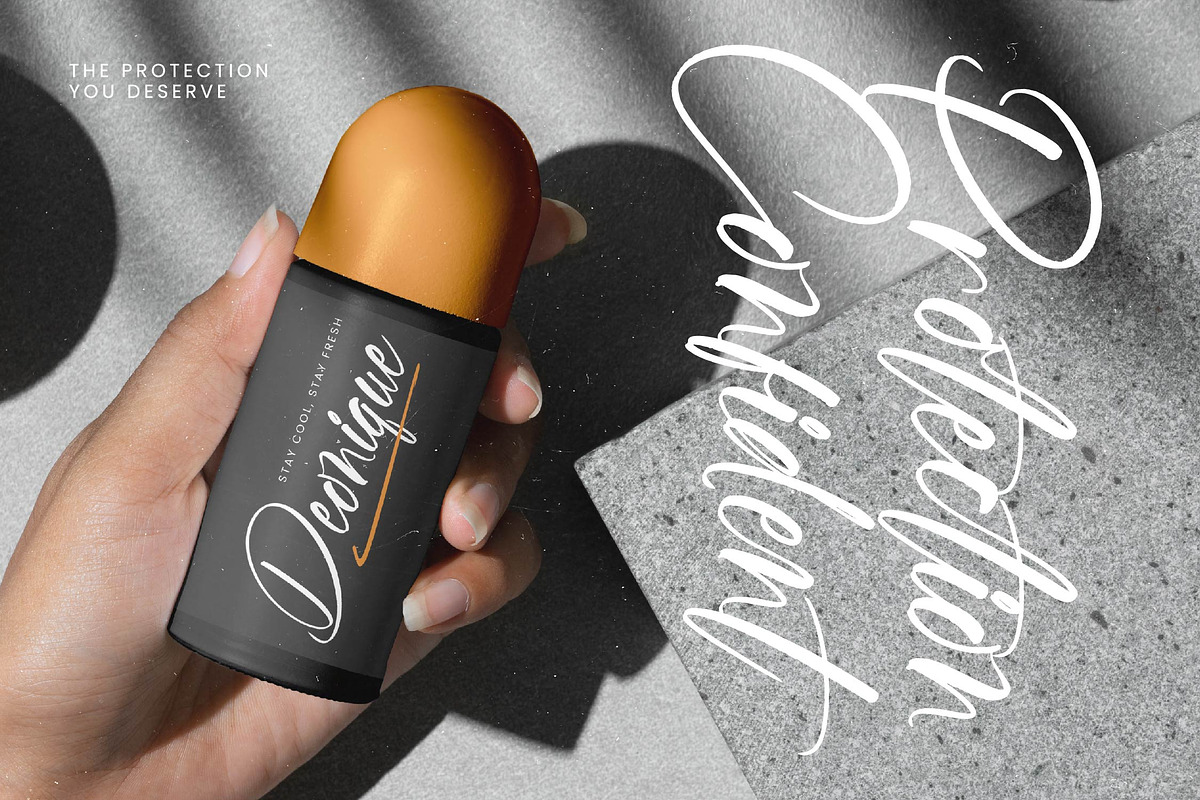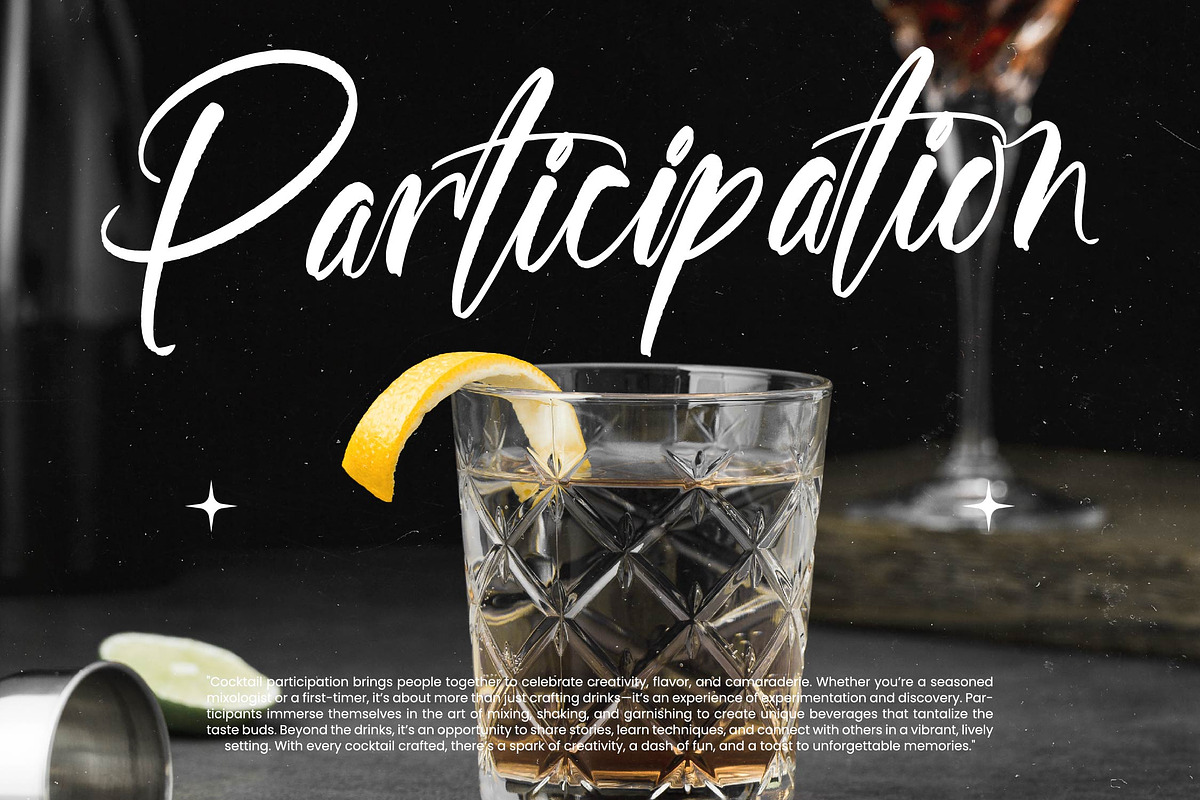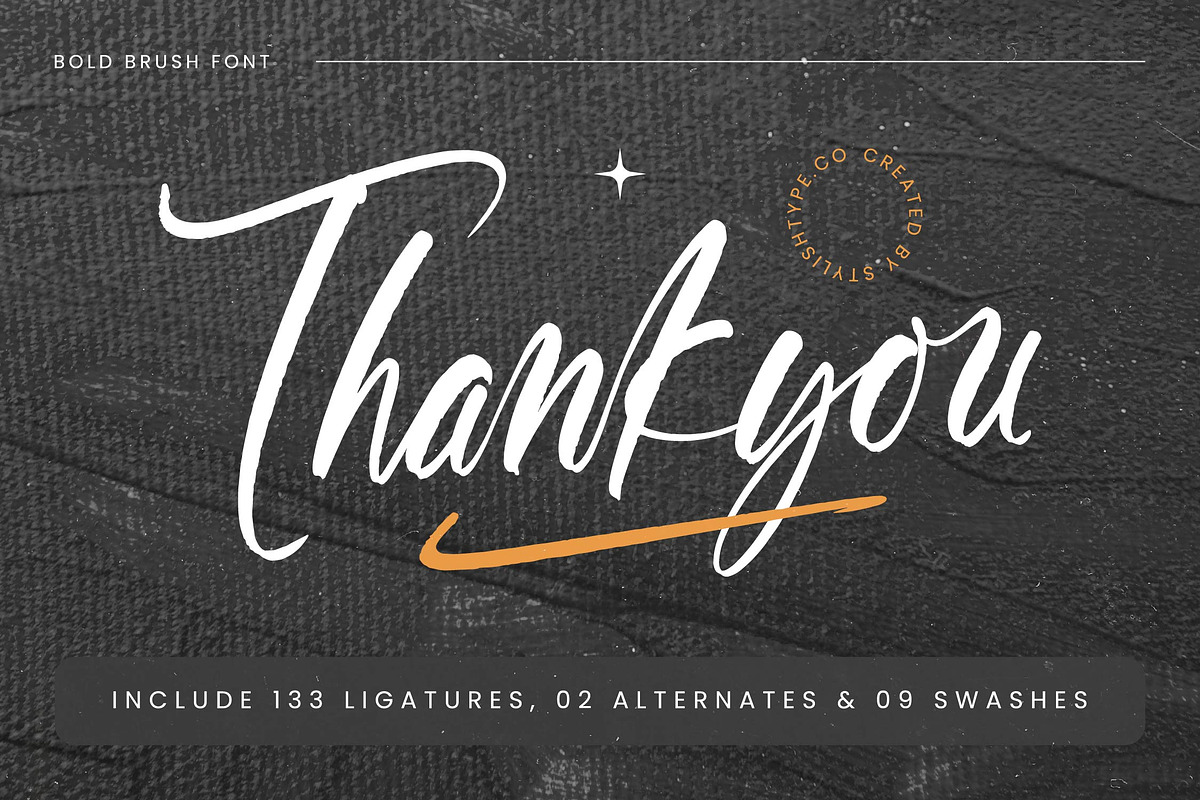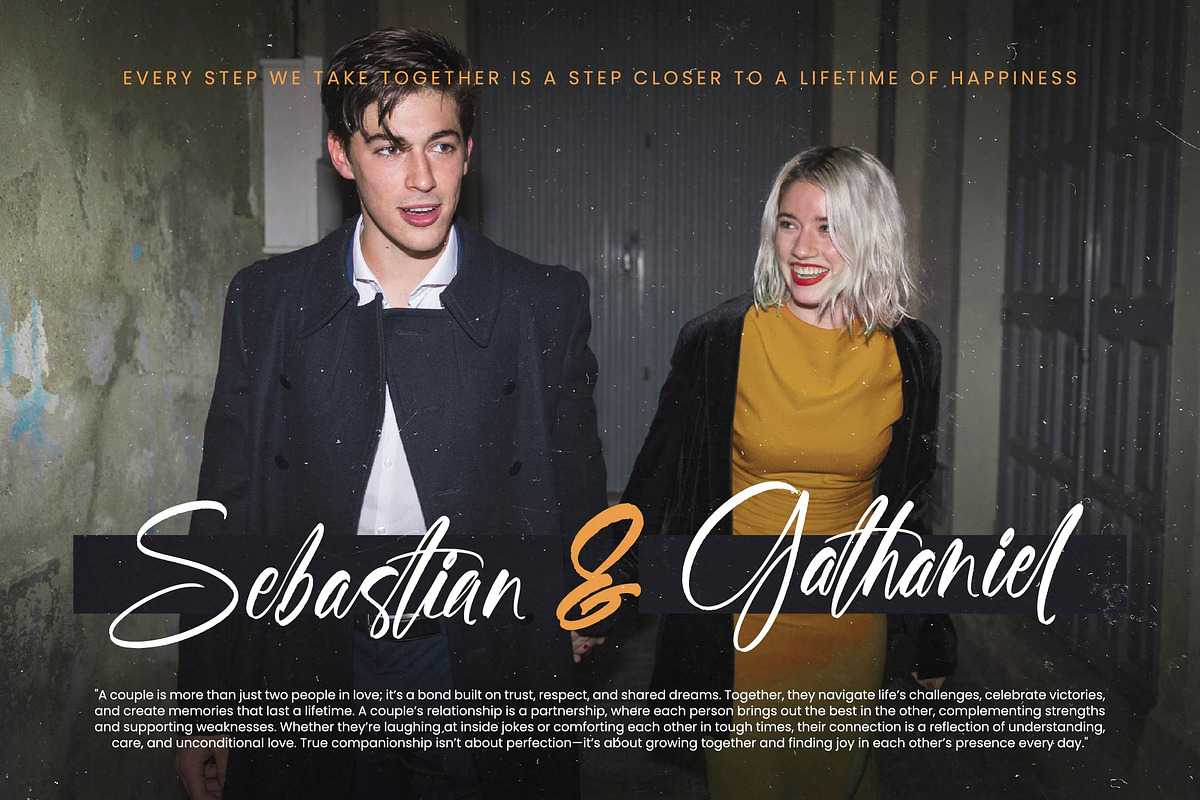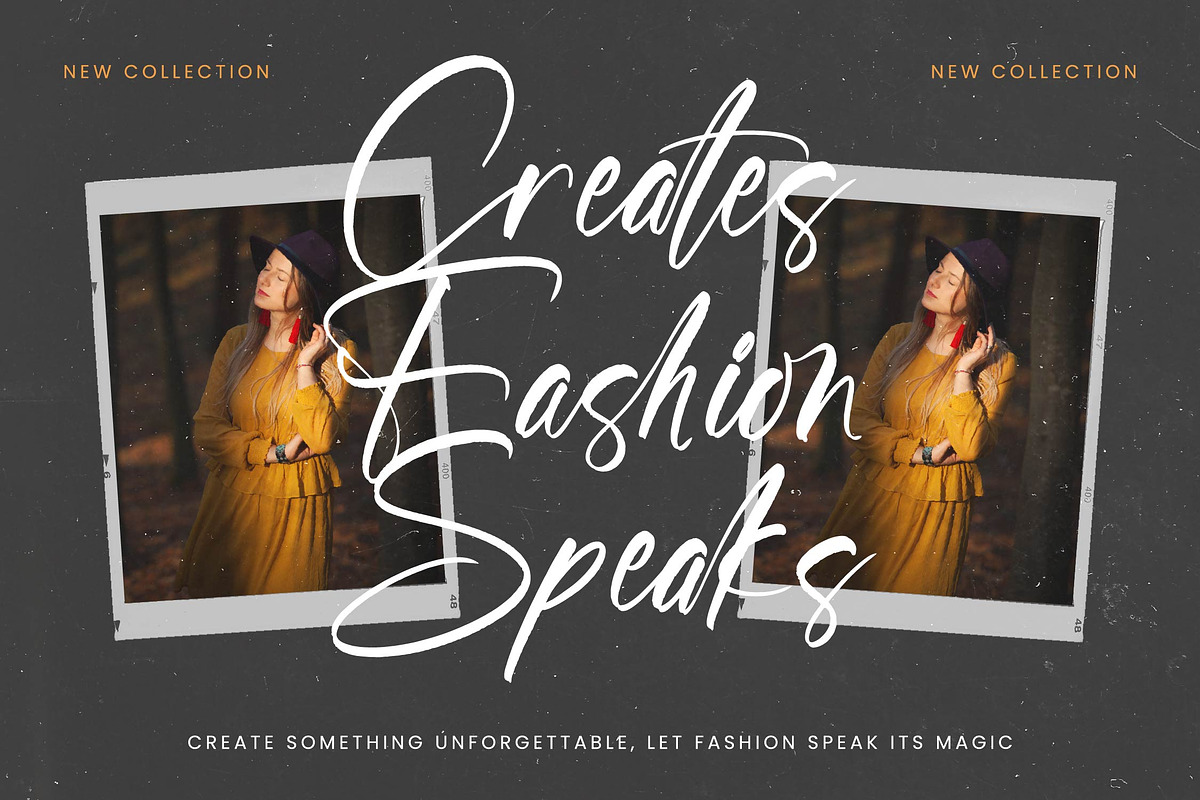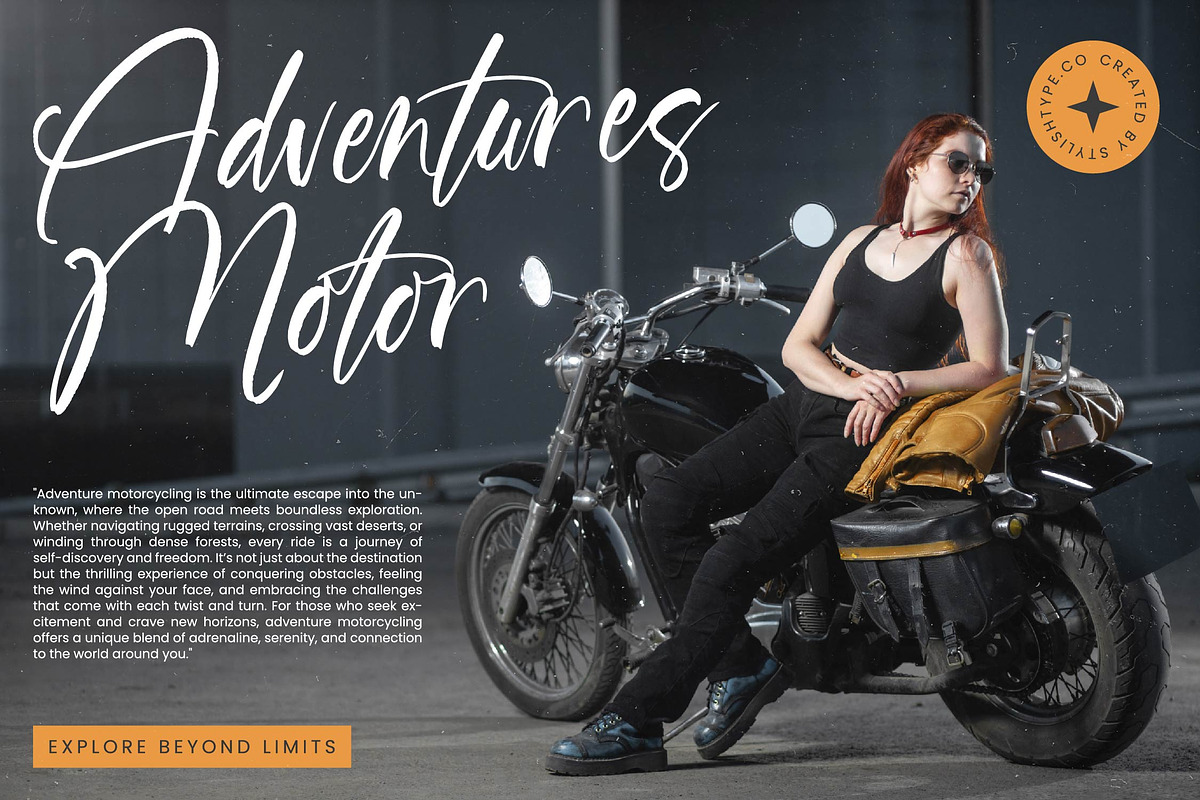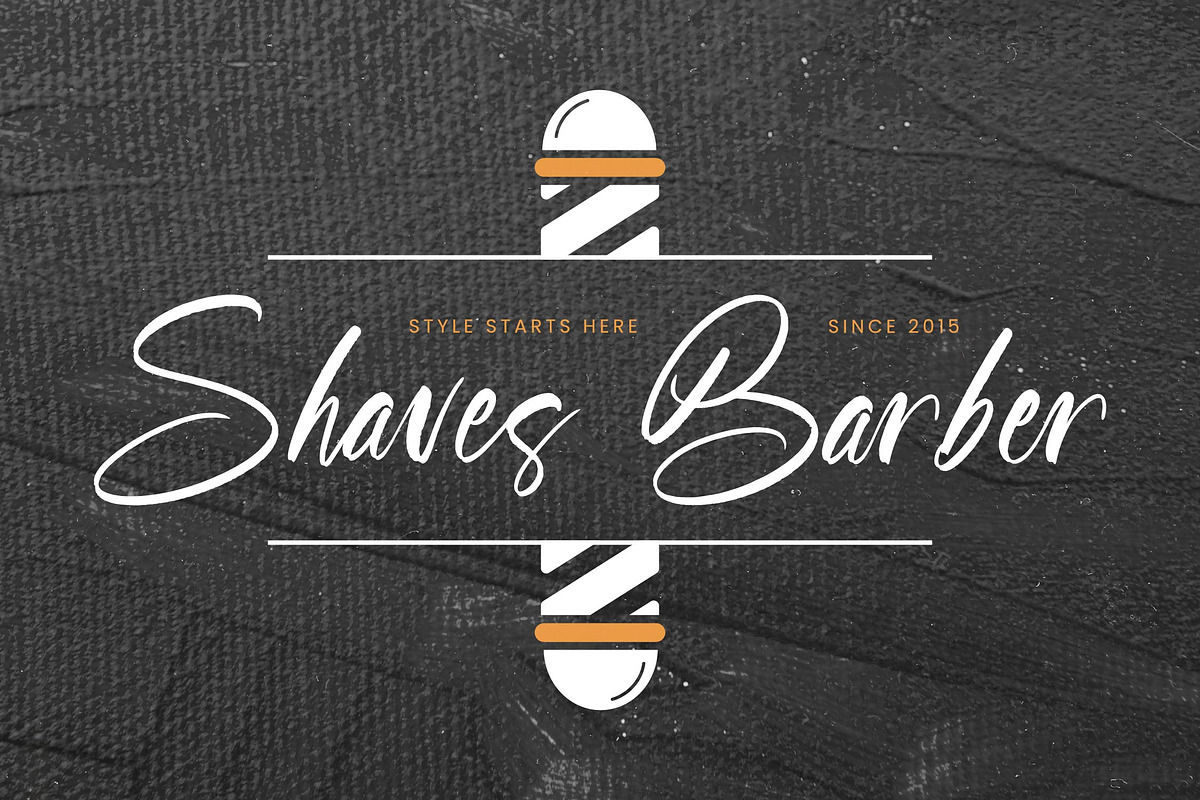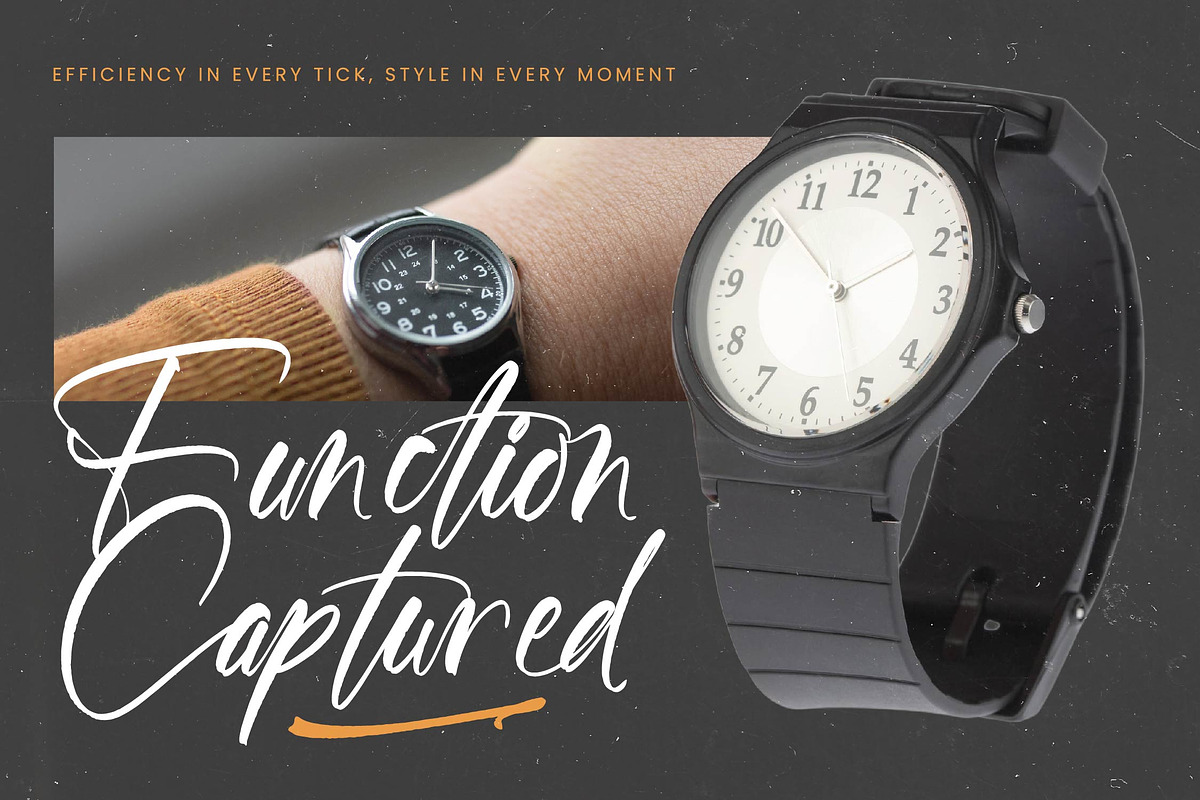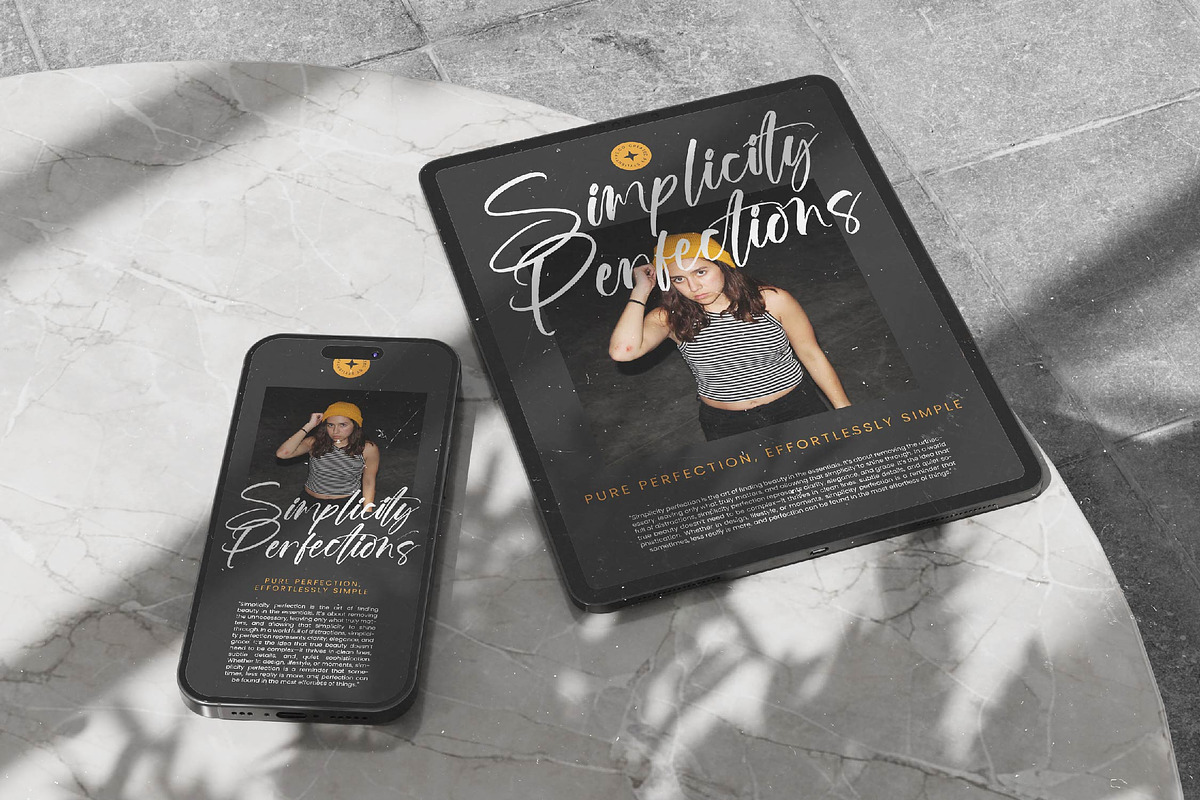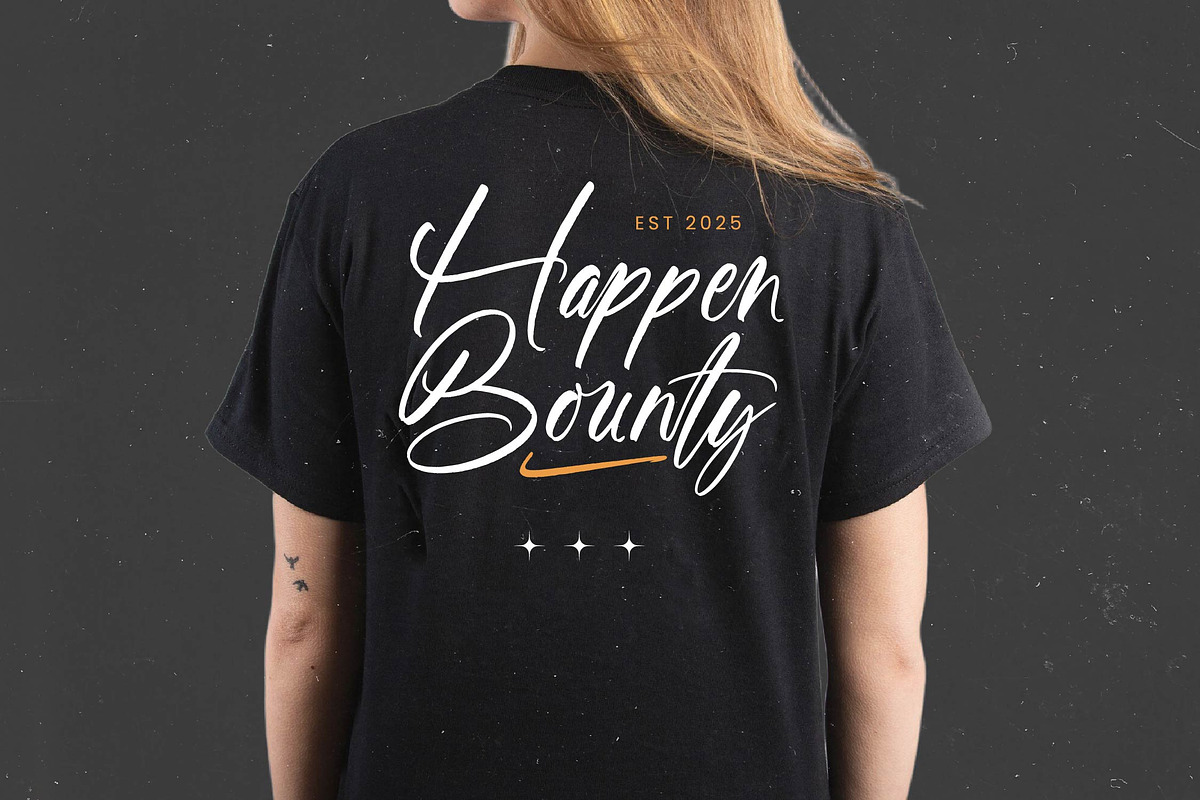
Blazking Bold Brush Font
Blazking - Bold Brush Font , from Stylishtype.Co , Suitable for any projects such as: logos, branding projects, homeware designs, product packaging, mugs, quotes, posters, shopping bags, t-shirts, book covers, name card, invitation cards, greeting cards, label, photography, watermark, special events, and all your other luxury and beautiful projects that need a Luxury Script taste.
- 133 Ligature 02 Alternates & 09 Swashes